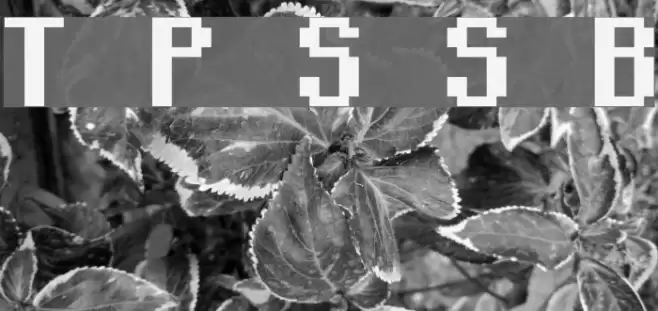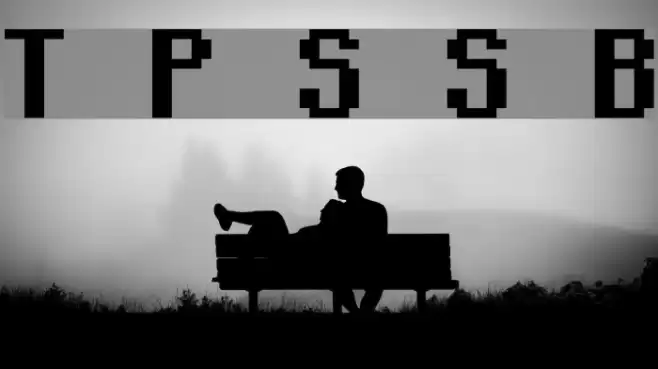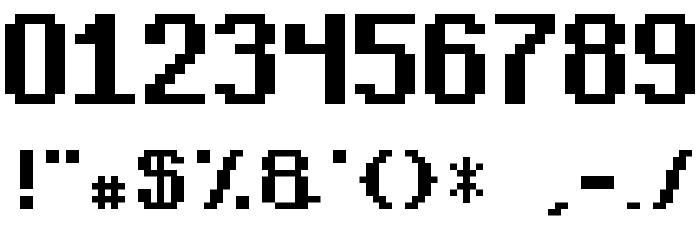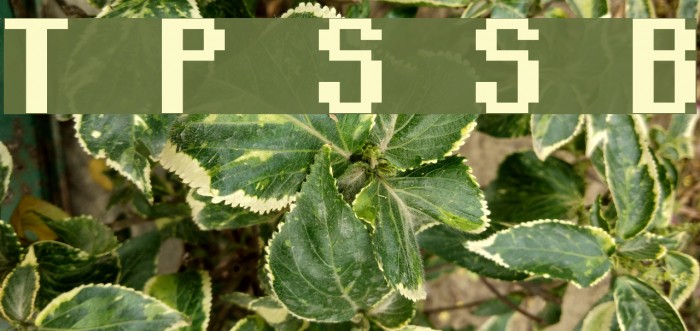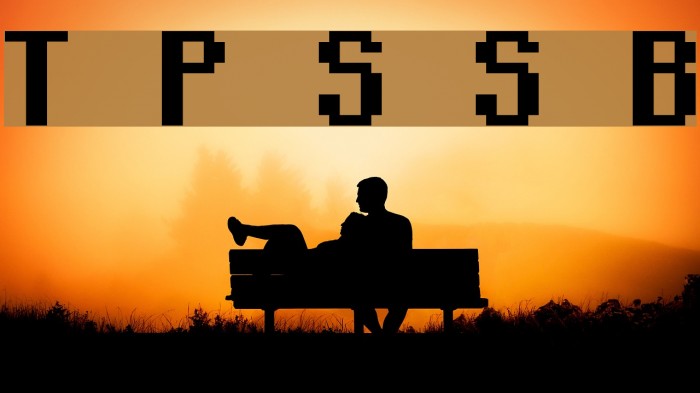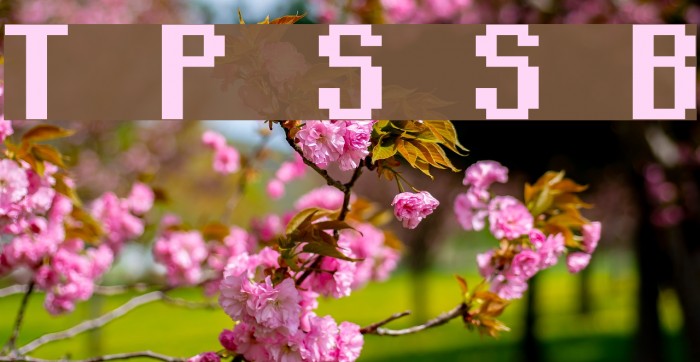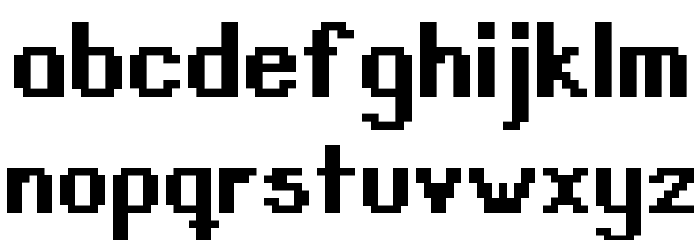
Teachers Pet Sans Serif Bold Font
Teachers Pet Sans Serif Bold Description
This font features a bold, geometric design with a pixelated aesthetic, reminiscent of early digital typefaces. The characters are constructed with uniform stroke widths, giving it a blocky and robust appearance. The uppercase and lowercase letters maintain a consistent height, contributing to a cohesive look. The numerals and special characters follow the same design principles, ensuring uniformity across all glyphs. This font's simplicity and clarity make it highly legible, even at smaller sizes, while its boldness ensures it stands out in any context.
A bold, pixelated sans-serif font with a geometric and digital aesthetic from Pixel fonts.
- Proposed Projects: Ideal for retro-themed designs, video game graphics, digital art projects, and any creative work that requires a bold, standout typeface.
- Use Case: Headlines, Logos, Digital Art